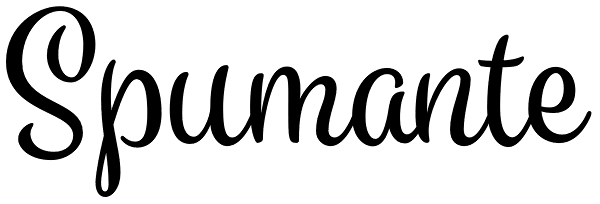
Spumante
Spumante Shadow - FREE with purchase of Spumante Regular or Spumante Family A slim, semi-connected script with lithely upright curves, Spumante conveys the casual effervescence of its namesake wine. Smoothed brush-script letterforms bounce gently...